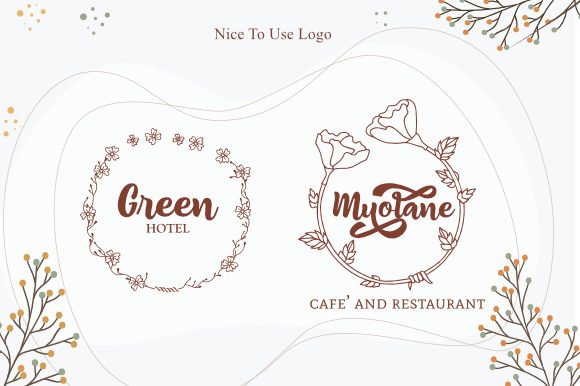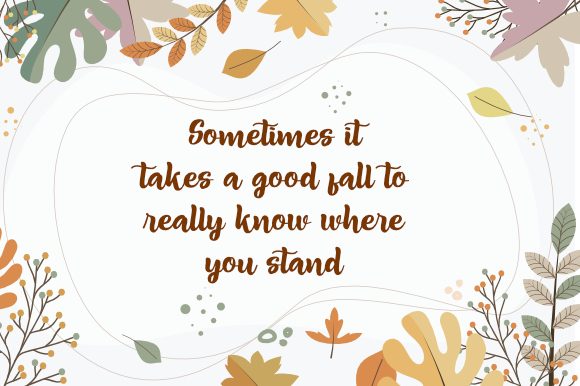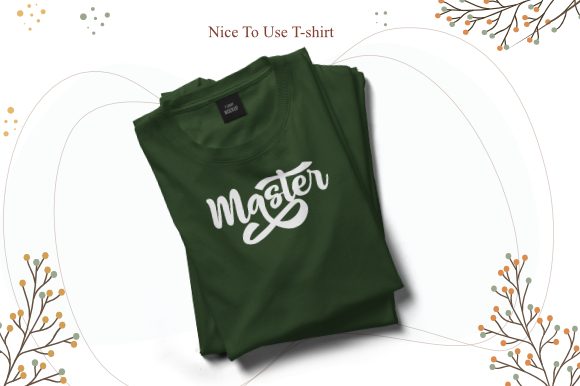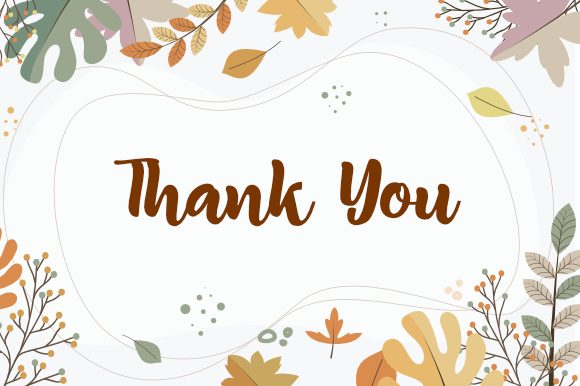
Introducing Beabella Font: The Sweet and Versatile Handwritten Font
Are you a designer or crafter looking for a font that can add a touch of warmth and personality to your projects? Look no further than Beabella Font, a sweet and flexible handwritten font that is sure to delight. With its romantic and jolly vibe, Beabella Font is the perfect choice for anyone looking to turn their project ideas into real works of art.
The Characteristics of Beabella Font
Beabella Font is an all-round and flexible handwritten font that is designed to be versatile and easy to use. Its sweet and charming letterforms are perfect for a wide range of projects, from wedding invitations and greeting cards to blog posts and social media graphics. The font’s warm and romantic feel makes it ideal for creating a sense of nostalgia and whimsy, while its jolly and upbeat vibe is sure to add a touch of fun and playfulness to any design.
What Makes Beabella Font So Special?
So, what sets Beabella Font apart from other fonts on the market? For starters, its unique and elegant letterforms are carefully crafted to create a sense of movement and fluidity, making it perfect for creating beautiful and eye-catching headings and titles. Additionally, the font’s flexibility means that it can be used in a wide range of sizes and styles, from large and bold to small and delicate.
Endless Variations and Creative Possibilities
One of the best things about Beabella Font is its endless variations and creative possibilities. With this font, you can create a wide range of different looks and styles, from simple and elegant to bold and playful. Whether you’re looking to create a beautiful and sophisticated design or a fun and quirky one, Beabella Font has got you covered. Some of the creative possibilities with Beabella Font include:
• Creating beautiful and eye-catching headings and titles for blog posts, social media graphics, and other designs
• Designing stunning wedding invitations, greeting cards, and other stationery
• Adding a touch of personality and whimsy to your website or blog
• Creating fun and playful graphics for kids’ parties, birthday cards, and other celebrations
Why Designers and Crafters Love Beabella Font
Beabella Font has quickly become a favorite among designers and crafters, and for good reason. Here are just a few reasons why:
• Easy to read and use: Beabella Font is clear and easy to read, making it perfect for use in a wide range of designs and projects.
• Highly versatile: Whether you’re looking to create a simple and elegant design or a bold and playful one, Beabella Font is the perfect choice.
• Unique and elegant letterforms: The font’s unique and elegant letterforms are carefully crafted to create a sense of movement and fluidity, making it perfect for creating beautiful and eye-catching headings and titles.
Getting Started with Beabella Font
• Experiment with different sizes and styles: Don’t be afraid to try out different sizes and styles with Beabella Font. Its flexibility means that it can be used in a wide range of sizes and styles, from large and bold to small and delicate.
• Pair it with other fonts: Beabella Font pairs perfectly with a wide range of other fonts, so don’t be afraid to get creative and try out different combinations.
• Use it in a wide range of projects: From wedding invitations and greeting cards to blog posts and social media graphics, Beabella Font is the perfect choice for any project that needs a touch of warmth and personality.